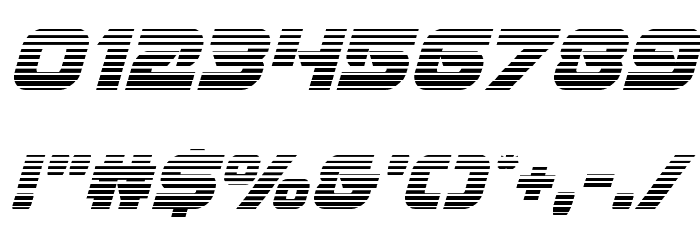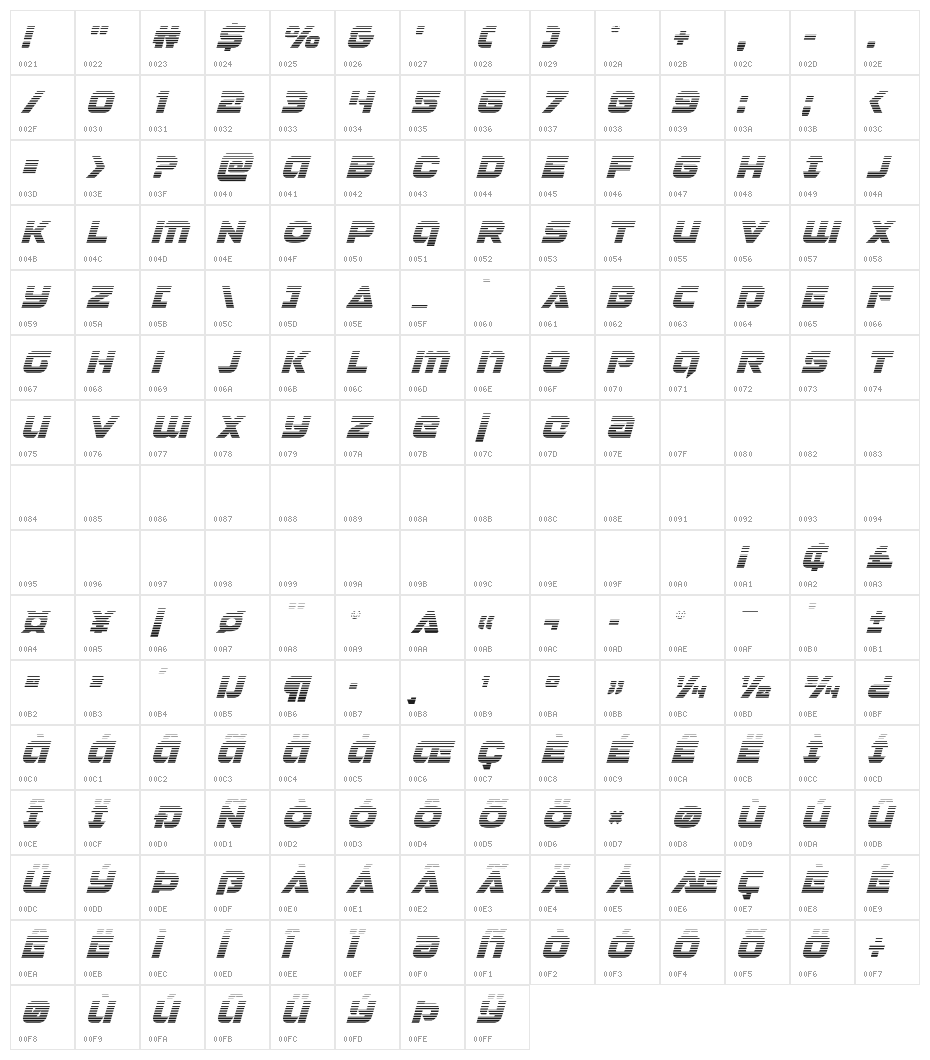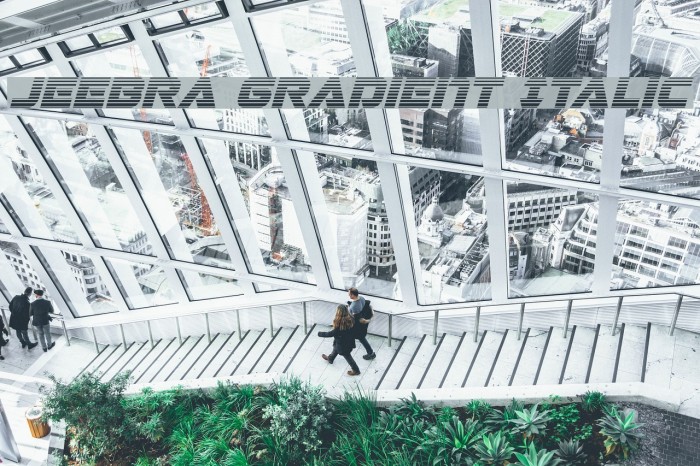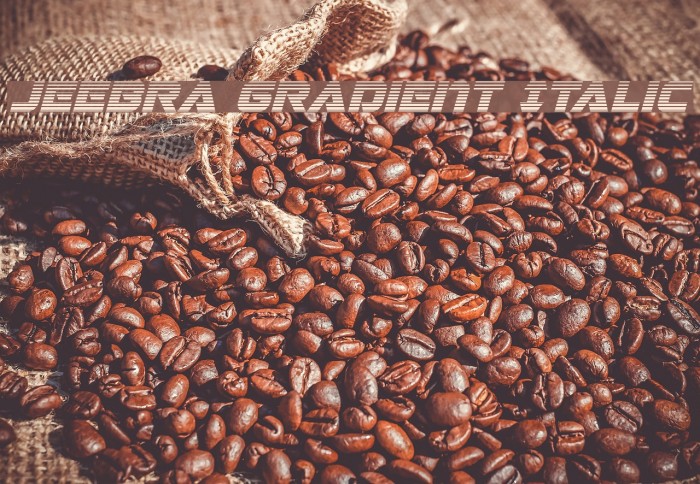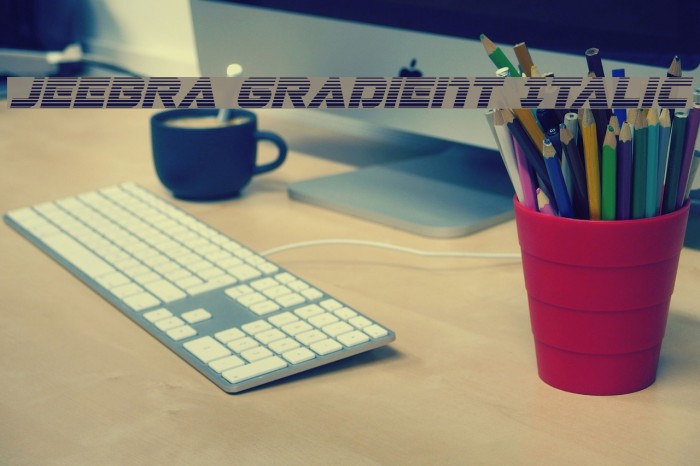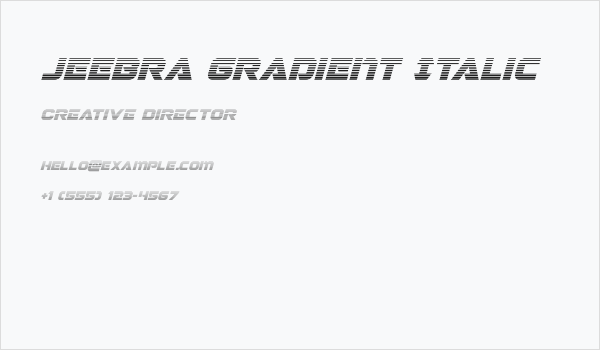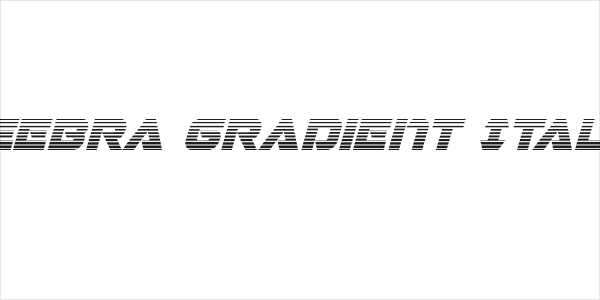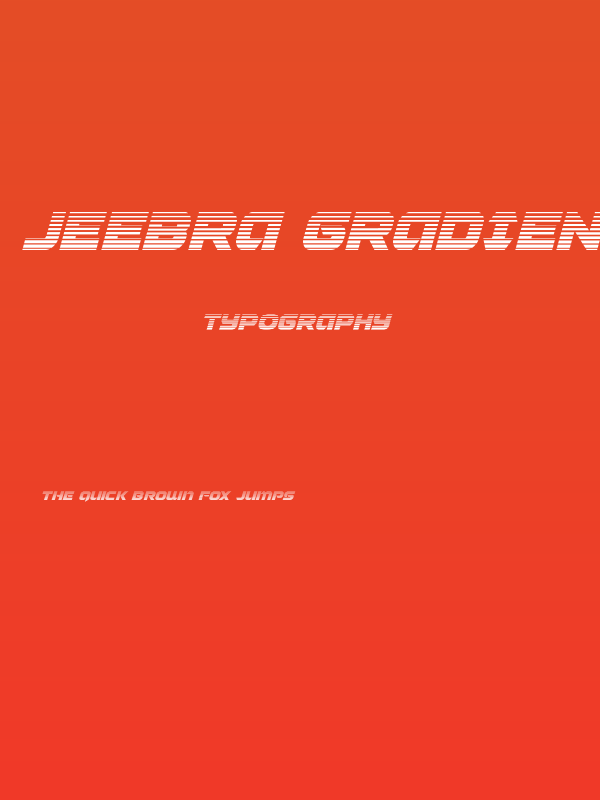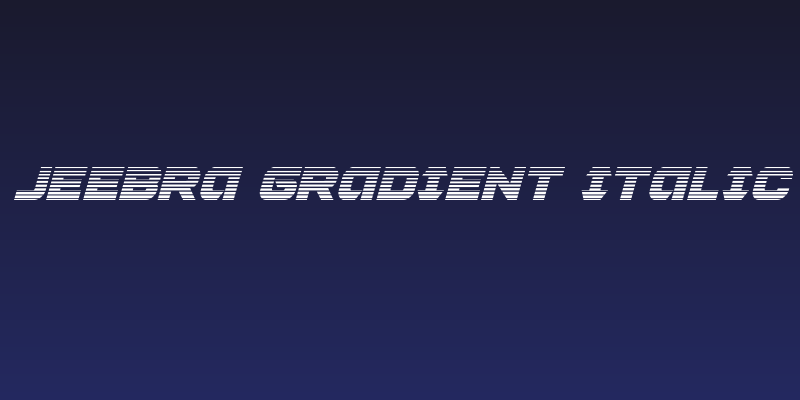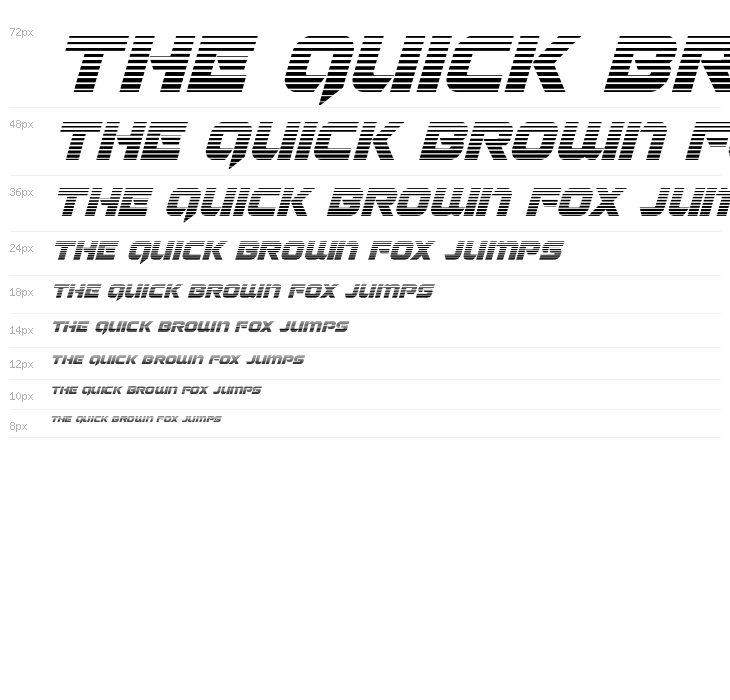
Jeebra Gradient Italic Font
Jeebra Gradient Italic Description
This font features a bold, italicized style with a distinct gradient effect created by horizontal lines running through each character. The design is modern and dynamic, giving a sense of movement and energy. The uppercase and lowercase letters maintain a consistent width, while the numbers and special characters complement the overall aesthetic. The font's unique striped pattern adds a futuristic and edgy feel, making it stand out in any design project.